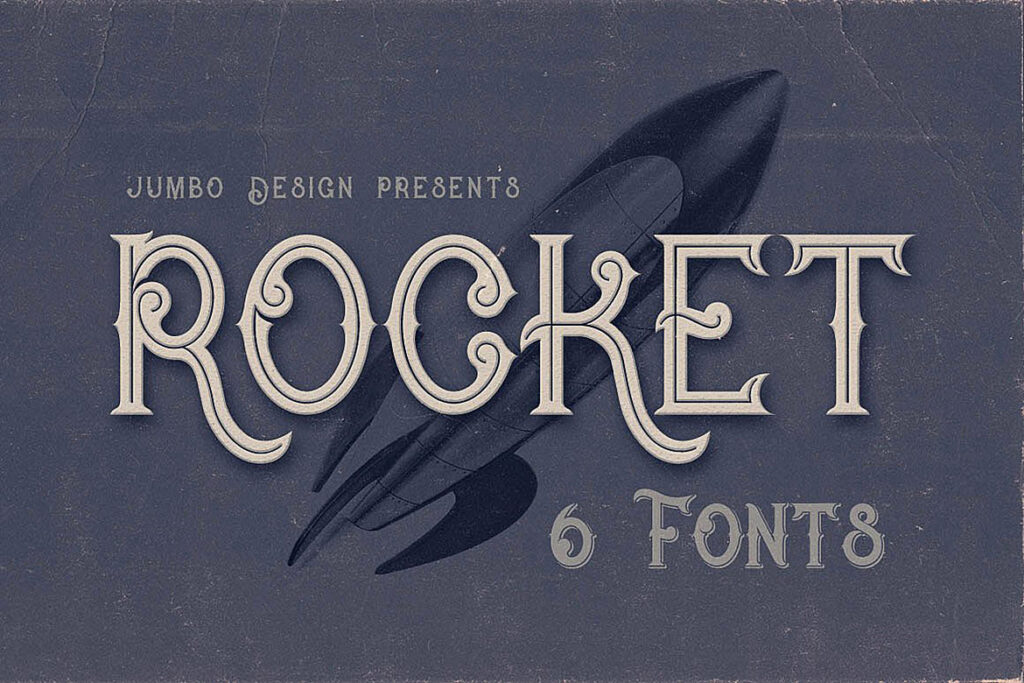
Rocket Font: A Blast from the Past for Your Design Needs
In the world of typography, fonts play a crucial role in conveying the tone and aesthetic of a design. With the numerous font options available, it can be challenging to find the perfect one that captures the essence of your project. However, if you’re looking for a font that embodies the spirit of retro sci-fi comics and films, look no further than the Rocket Font. In this article, we’ll explore the features, benefits, and uses of the Rocket Font, and why it’s a must-have for designers and typographers.
What is Rocket Font?
Rocket Font is a beautiful, display font that draws inspiration from the retro sci-fi comics and films of yesteryear. Its unique design is reminiscent of the iconic titles and logos from the 1950s and 1960s, evoking a sense of nostalgia and futurism. The font’s creator aimed to capture the essence of this bygone era, infusing it with a modern twist to make it suitable for various design applications.
Key Features of Rocket Font
Rocket Font boasts an impressive array of features that make it a versatile and desirable font for designers. Some of its key features include:
- Multiple Style Options: Rocket Font comes with an abundance of different style options, allowing you to experiment with various looks and feels to suit your design needs.
- Retro-Futuristic Aesthetic: The font’s retro-futuristic design makes it perfect for projects that require a nostalgic, yet modern feel.
- Highly Legible: Despite its ornate design, Rocket Font is highly legible, making it suitable for use in a variety of contexts, from headlines to body text.
- Customizable: The font is highly customizable, allowing you to adjust its size, color, and style to fit your design requirements.
Benefits of Using Rocket Font
The Rocket Font offers numerous benefits for designers and typographers. Some of the advantages of using this font include:
- Unique Visual Identity: Rocket Font helps create a unique visual identity for your design, setting it apart from more conventional fonts.
- Emotional Connection: The font’s retro-futuristic aesthetic can evoke an emotional connection with your audience, transporting them to a bygone era.
- Versatility: Rocket Font’s multiple style options and high legibility make it suitable for a wide range of design applications, from posters and flyers to digital interfaces and branding.
- Time-Saving: With Rocket Font, you can save time and effort in creating custom typography, as the font is already designed to perfection.
Uses of Rocket Font
Rocket Font’s versatility makes it suitable for various design applications. Some of the uses of this font include:
- Posters and Flyers: Create eye-catching posters and flyers with Rocket Font’s bold, attention-grabbing design.
- Branding and Logo Design: Use Rocket Font to create a unique and memorable brand identity that stands out from the competition.
- Digital Interfaces: Apply Rocket Font to digital interfaces, such as websites, mobile apps, and video games, to create a retro-futuristic aesthetic.
- Headings and Titles: Use Rocket Font as a display font for headings and titles, adding a touch of nostalgia and sophistication to your design.
Tips for Using Rocket Font Effectively
To get the most out of Rocket Font, follow these tips:
- Experiment with Style Options: Try out different style options to find the one that best suits your design needs.
- Balance with Other Fonts: Balance Rocket Font with other fonts to create visual harmony and avoid overwhelming the reader.
- Adjust Font Size and Color: Adjust the font size and color to ensure optimal legibility and visual impact.
- Use in Combination with Images: Use Rocket Font in combination with images to create a visually appealing design that tells a story.
In conclusion, Rocket Font is a must-have display font for designers and typographers looking to add a touch of retro-futurism to their designs. With its multiple style options, high legibility, and customizable features, Rocket Font is suitable for a wide range of design applications. By following the tips outlined in this article, you can effectively use Rocket Font to create stunning designs that evoke a sense of nostalgia and futurism.
FAQs About Rocket Font
- What is Rocket Font? Rocket Font is a display font inspired by retro sci-fi comics and films.
- What are the key features of Rocket Font? Rocket Font features multiple style options, a retro-futuristic aesthetic, high legibility, and customizability.
- What are the benefits of using Rocket Font? The benefits of using Rocket Font include creating a unique visual identity, evoking an emotional connection, versatility, and time-saving.
- What are the uses of Rocket Font? Rocket Font can be used for posters and flyers, branding and logo design, digital interfaces, and headings and titles.